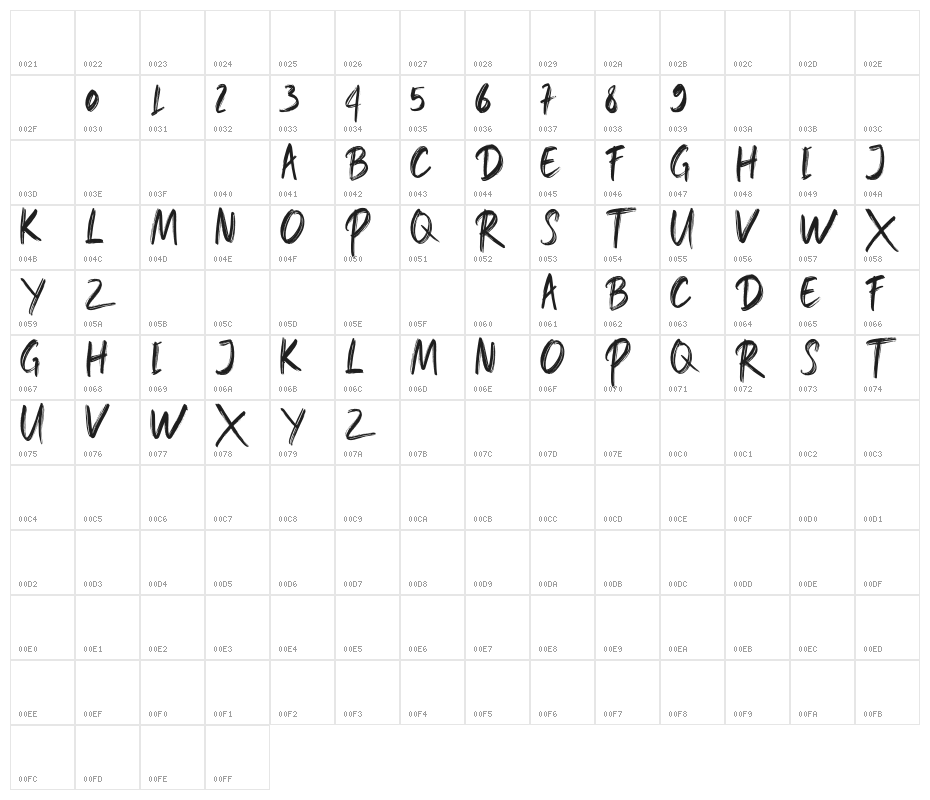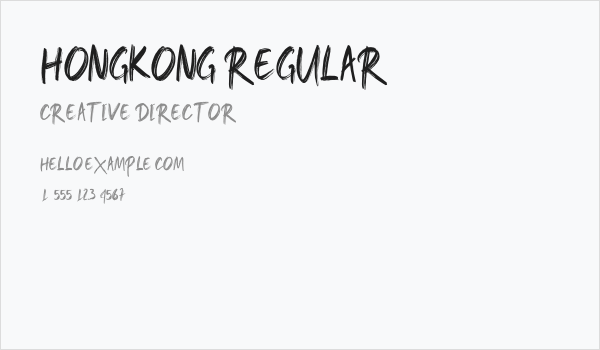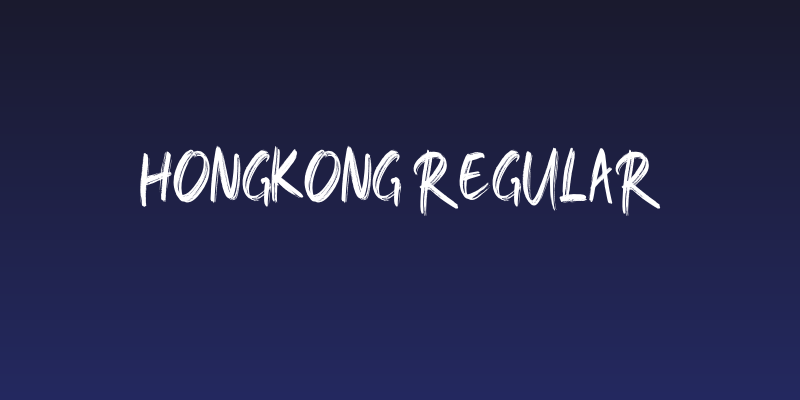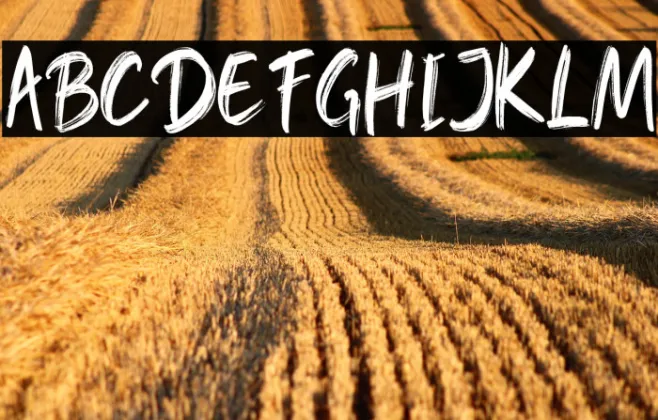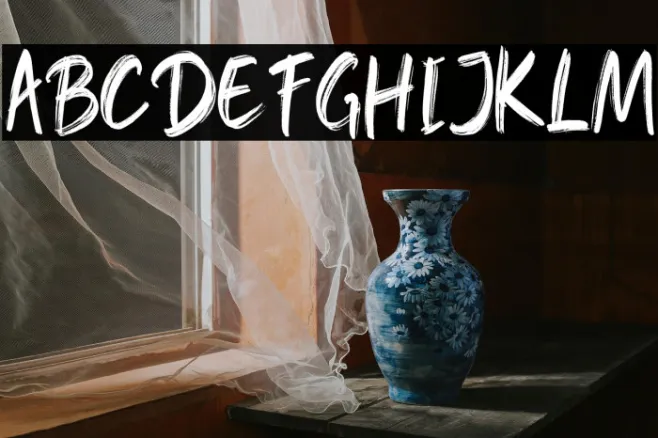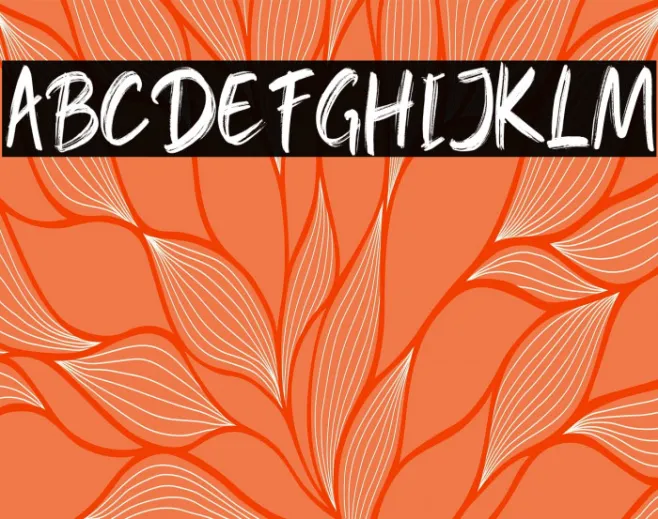
HONGKONG-Regular Font
HONGKONG-Regular Description
This font exudes a dynamic and energetic style, characterized by its bold, brush-like strokes that convey a sense of movement and spontaneity. The letters are crafted with an uneven, hand-drawn quality, giving them a personal and artistic touch. The uppercase and lowercase letters maintain a consistent style, while the numbers and special characters integrate seamlessly with the overall design. The font's organic flow and irregularities make it ideal for projects that require a personal, creative, or informal tone.
| Proposed Projects | Ideal for artistic projects, branding, posters, and social media graphics that require a personal and energetic touch. |